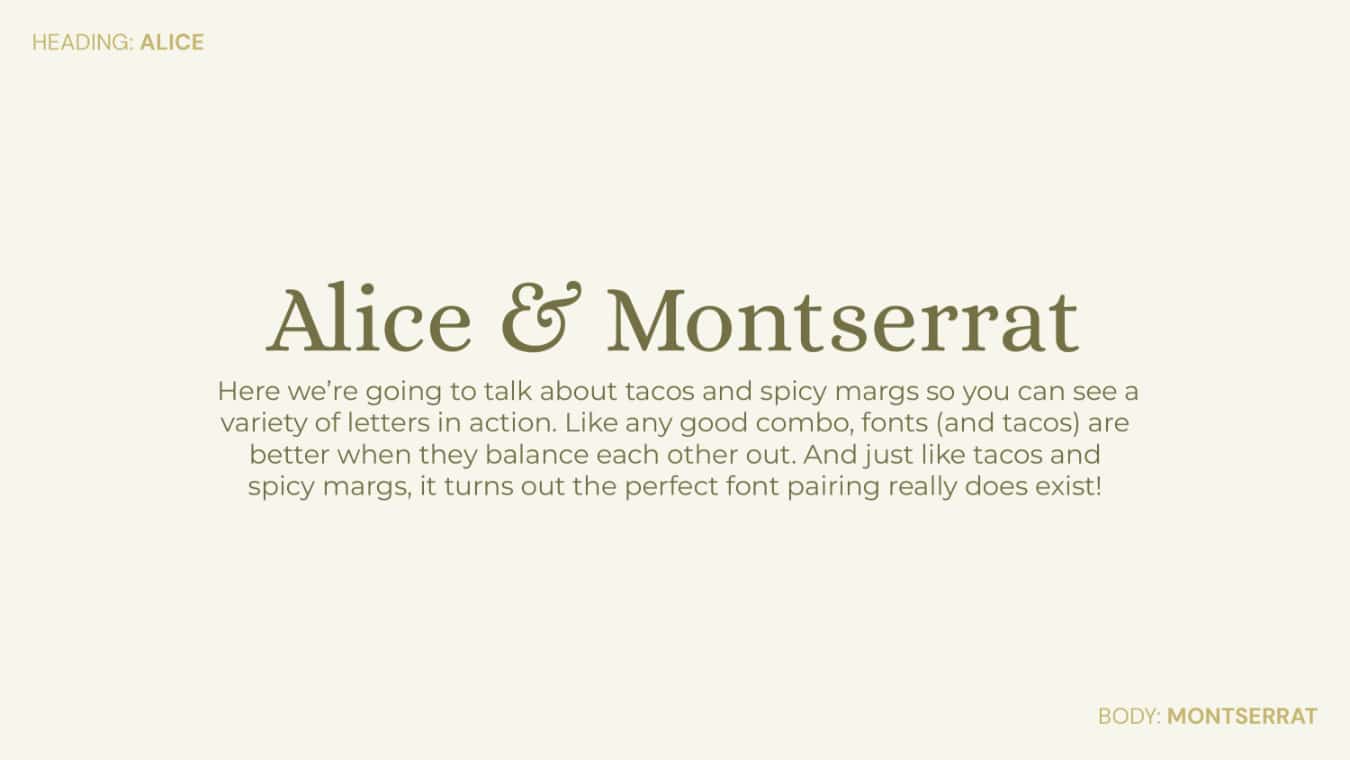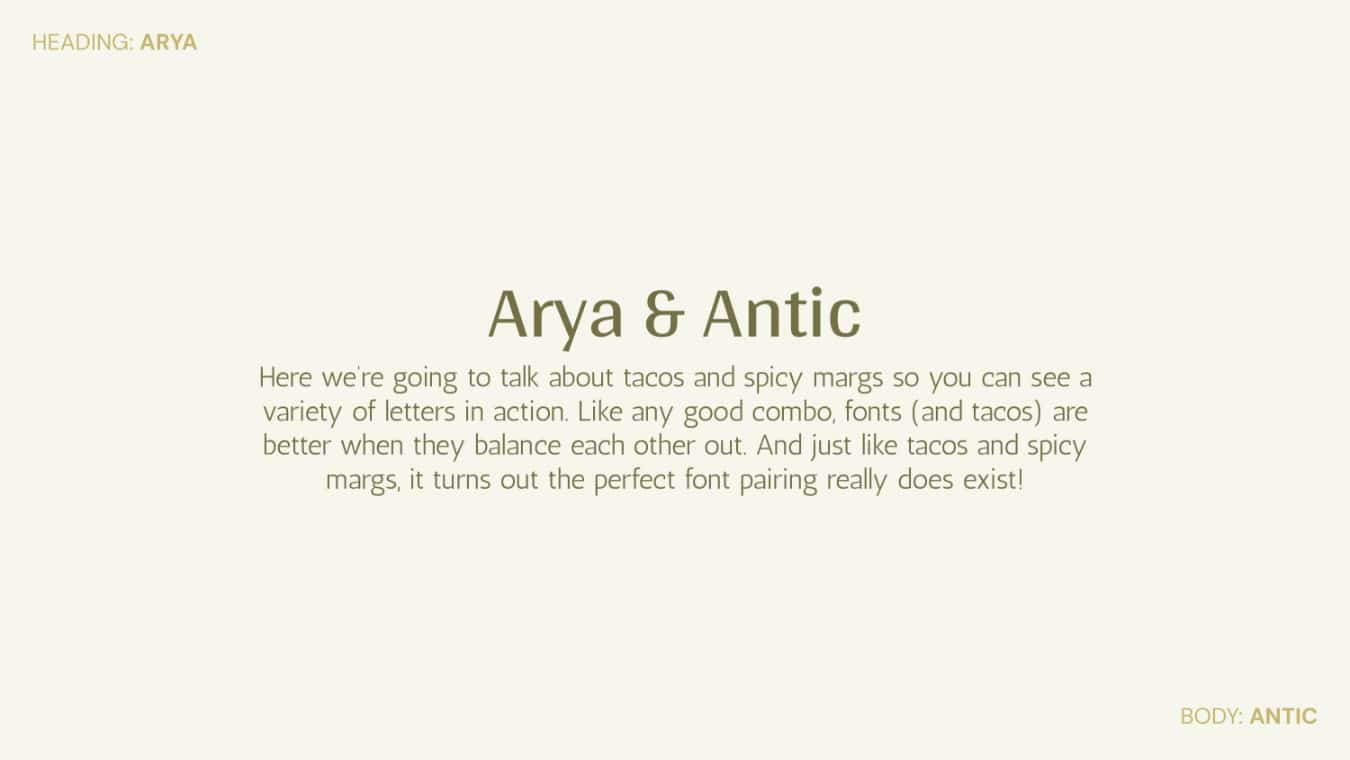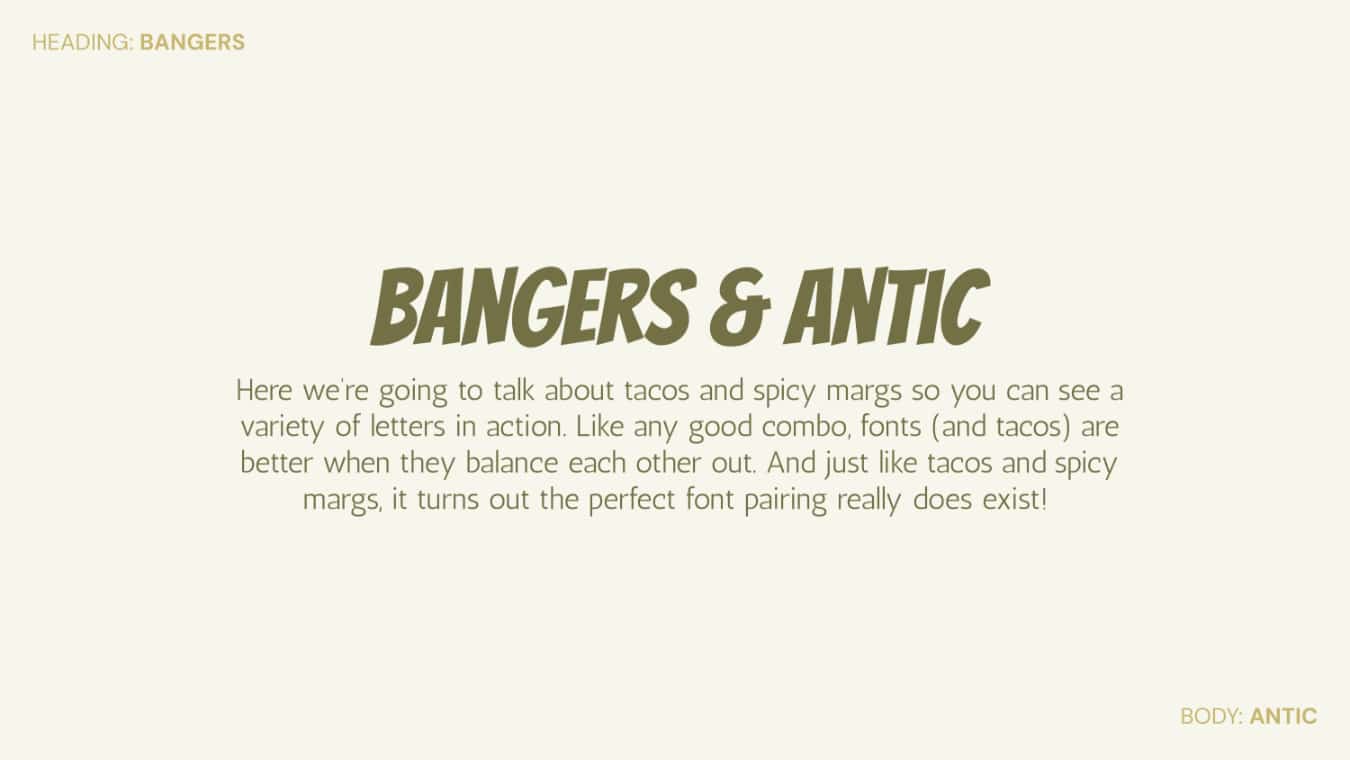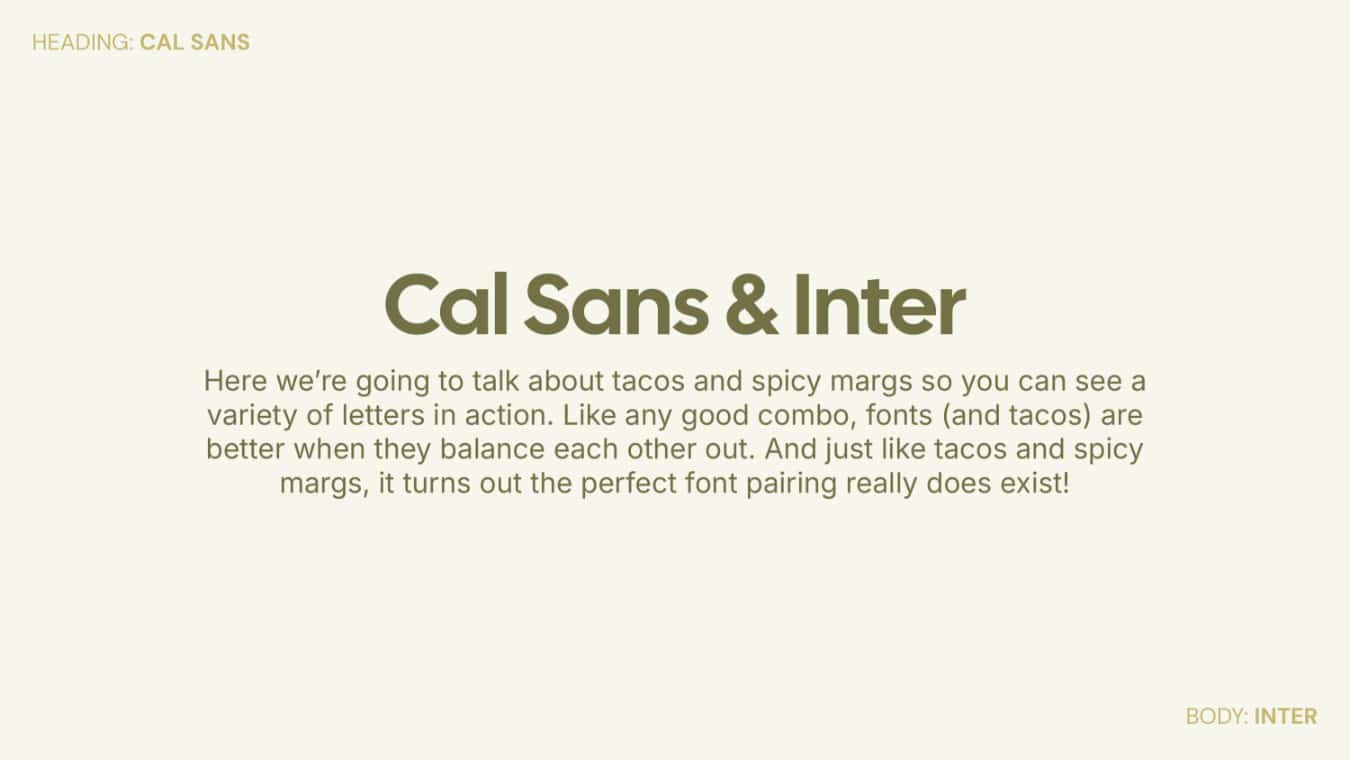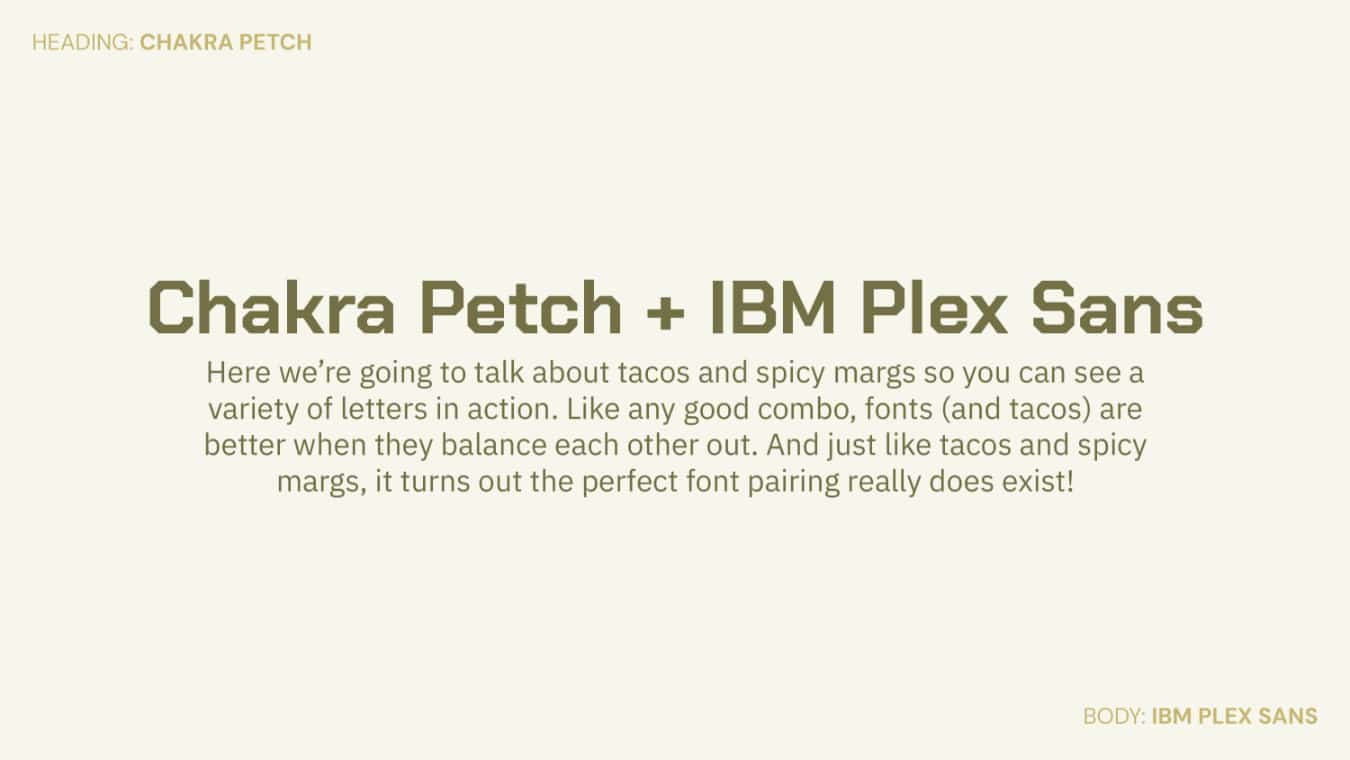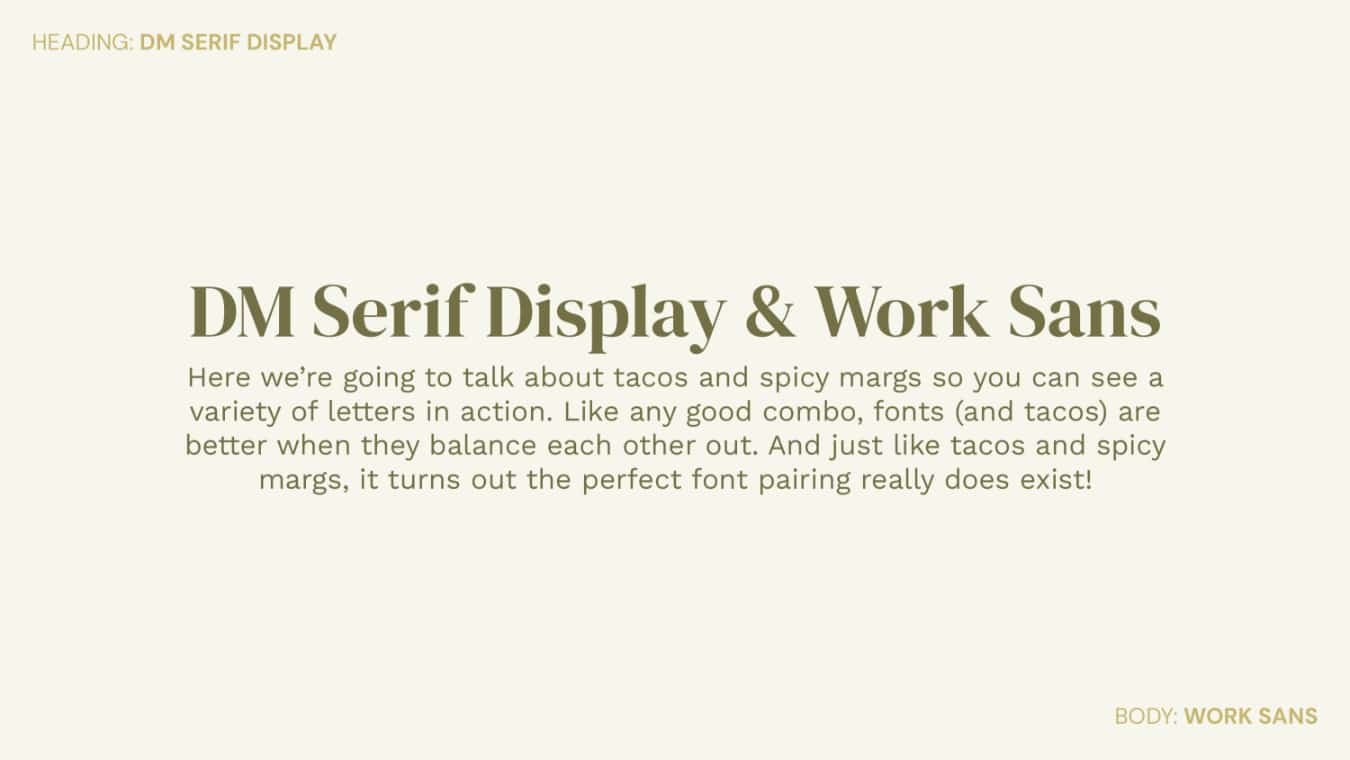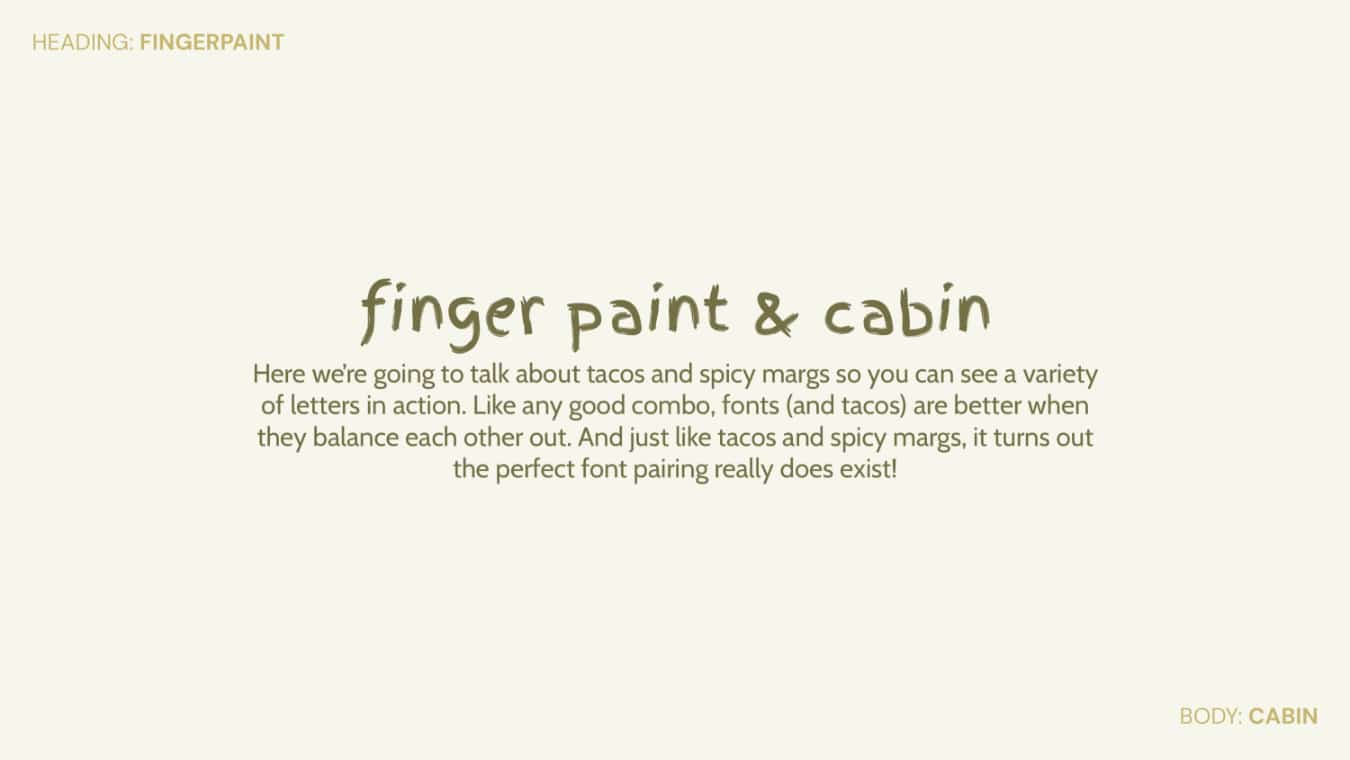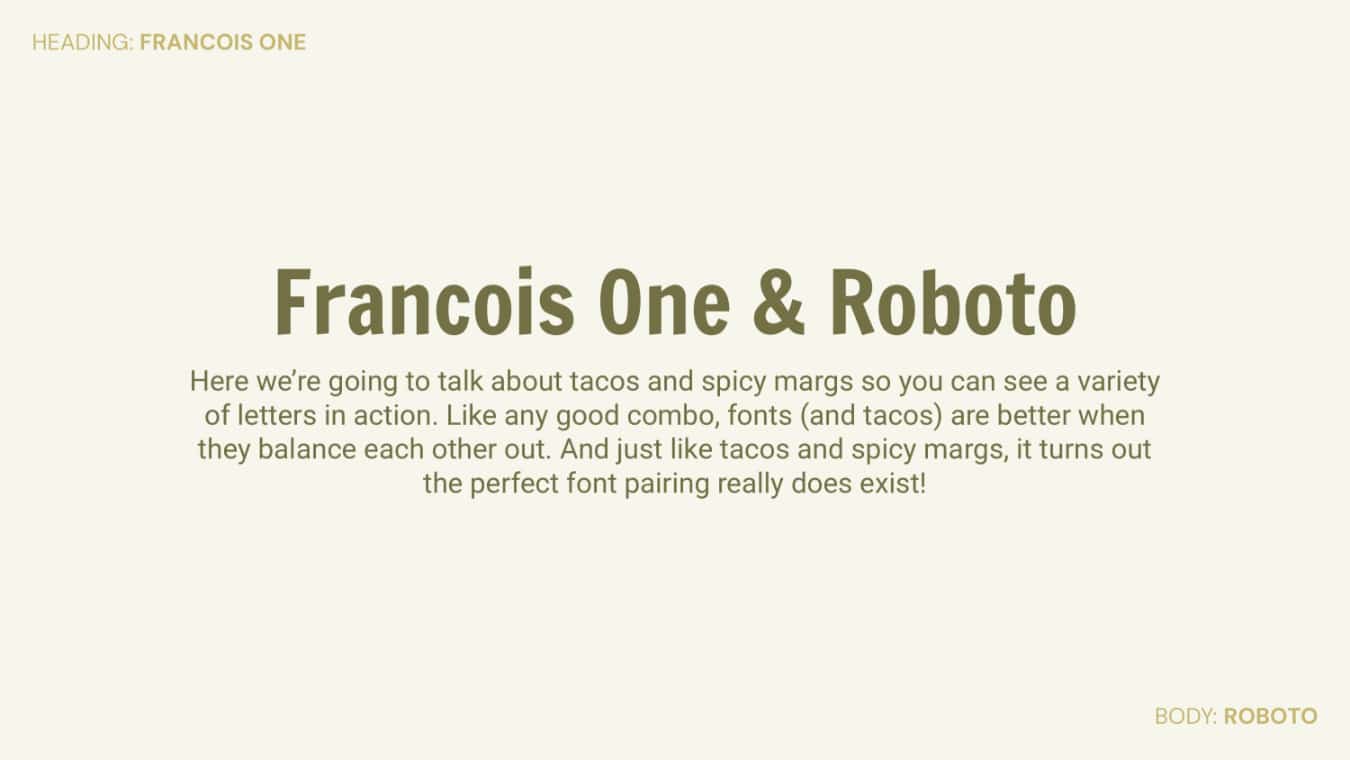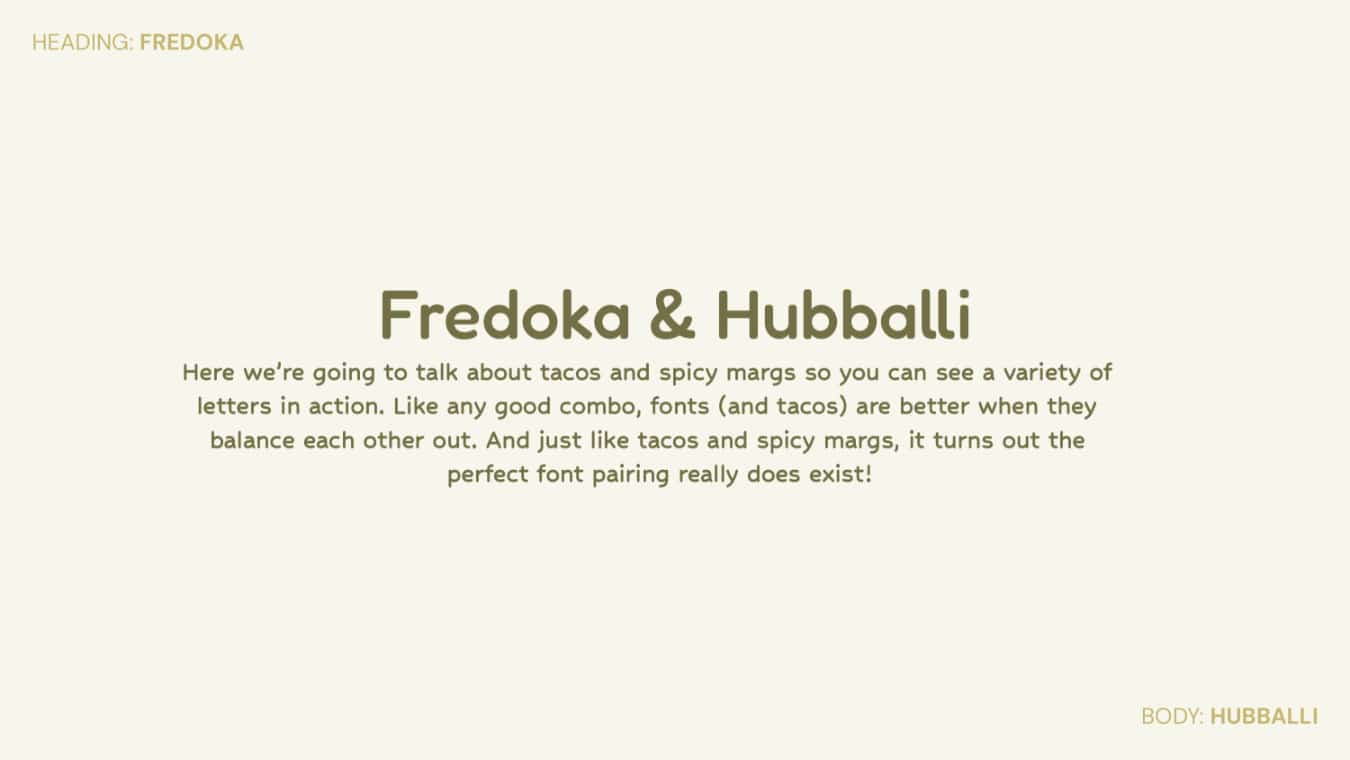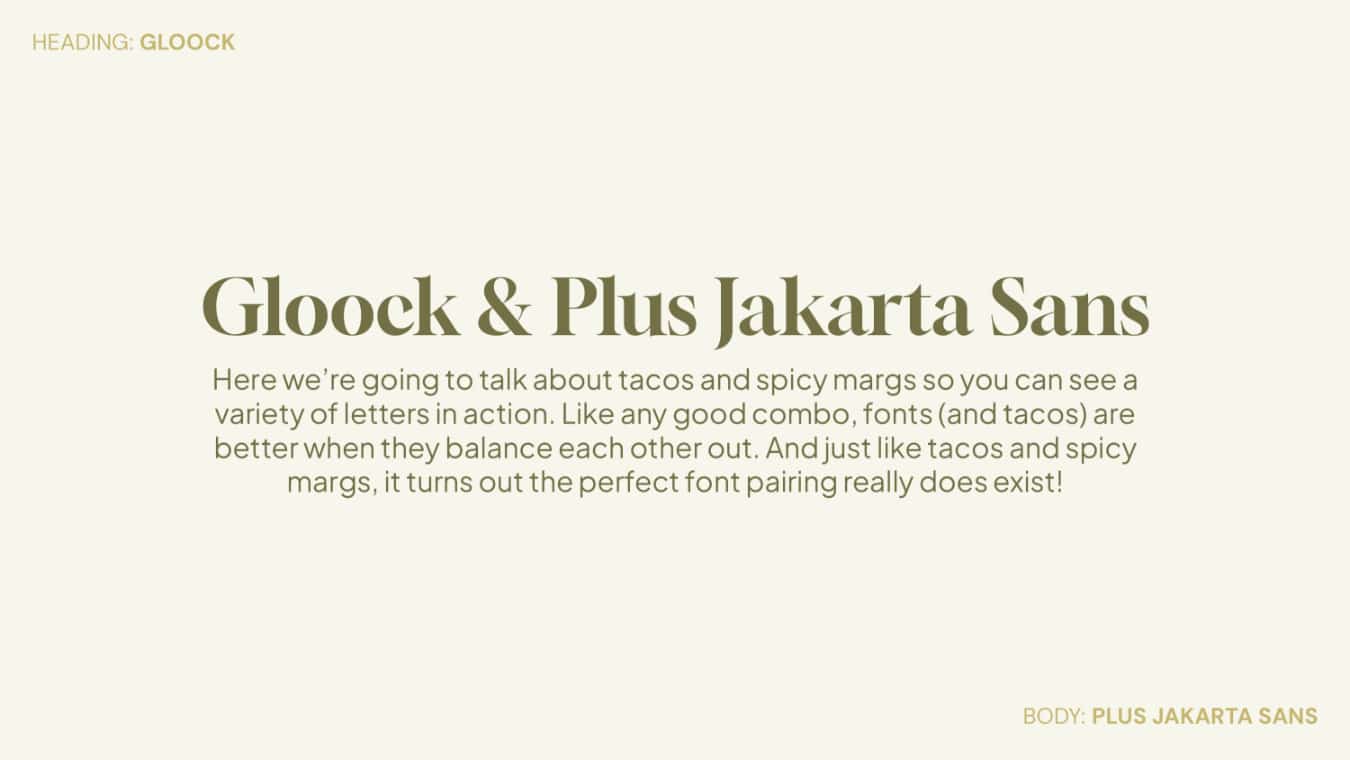
Typography is so important with how your brand shows up online (and offline), and there is a certain art to creating the perfect font pairing.  The general rule is to stick to a maximum of three fonts: one for headings, one for body text and a third for accents or subheadings. However, with the use of CAPITALS, bold, italics, and underline variations, two fonts is usually more than enough.
1. DM Serif Display & Work Sans
Vibe: Elegant and contemporary
Perfect for: Portfolios, service-based businesses, minimalist brands
2. Josefin Sans & Open Sans
Vibe: Geometric meets approachable
Perfect for: Blogs, online stores, creative entrepreneurs
Pro tip: Use a line-height of 1.6+ for better readability with Josefin Sans.
3. Kanchenjunga & Lato
Vibe: Bold Himalayan character with a modern twist
Perfect for: Niche brands, adventure blogs, standout headings
4. Raleway & Lora
Vibe: Clean and elegant
Perfect for: Wellness brands, lifestyle websites, personal blogs
5. Space Grotesk & DM Sans
Vibe: Techy, modern, and clean
Perfect for: SaaS sites, tech portfolios, landing pages
6. Alice & Montserrat
Vibe: Whimsical meets structured
Perfect for: Creative agencies, branding studios, storytelling sites
7. Bangers & Antic
Vibe: Comic-style energy with a calm base
Perfect for: Event posters, creative projects, kids’ brands
8. Cal Sans & Inter
Vibe: Sharp and modern
Perfect for: Startups, UI-heavy sites, clean branding
9. Chakra Petch & IBM Plex Sans
Vibe: Futuristic but grounded
Perfect for: Tech brands, portfolios, dev blogs
Pro tip: Avoid using Chakra Petch at very small sizes because it can feel cramped.
10. Arya & Antic
Vibe: Clean and minimalist
Perfect for: Service businesses, coaching websites, neutral brands
11. Finger Paint & Cabin
Vibe: Playful and casual
Perfect for: Kid-focused brands, handmade products, craft blogs
Pro tip: Finger Paint works best in all lowercase or all caps, sentence case can look a bit unbalanced.
12. Francois One & Roboto
Vibe: Strong and reliable
Perfect for: Corporate brands, CVs, online publications
13. Fredoka & Hubballi
Vibe: Rounded, bubbly, and modern
Perfect for: Health, wellness, or education brands
14. Gloock & Plus Jakarta Sans
Vibe: Stylish contrast of editorial serif + minimal sans
Perfect for: Creative businesses, portfolios, lifestyle brands
15. Libre Baskerville & Libre Franklin
Vibe: Timeless and trustworthy
Perfect for: Long-form blogs, media, consultants
16. Merriweather & PT Sans
Vibe: Traditional but readable
Perfect for: Education, nonprofits, thought leadership sites
17. Parisienne & Quicksand
Vibe: Feminine and modern
Perfect for: Creative businesses, wedding websites(and invites), beauty brands, florists
Pro tip: Don’t use Parisienne for long lines — it’s best kept to names or short phrases.
18. Permanent Marker & Rubik
Vibe: Bold and creative
Perfect for: Youth-focused brands, fun campaigns, DIY brands
Pro tip: Use sparingly, Permanent Marker is bold and best for short, punchy headings.
19. Sacramento & Lora
Vibe: Signature-style elegance
Perfect for: Personal brands, service-based businesses, luxury creatives
Pro tip: Great for names or short accents, avoid using Sacramento in full sentences.
20. Special Gothic Expanded One & Nunito
Vibe: Bold retro with a friendly twist
Perfect for: Brands with personality, packaging, modern-retro content